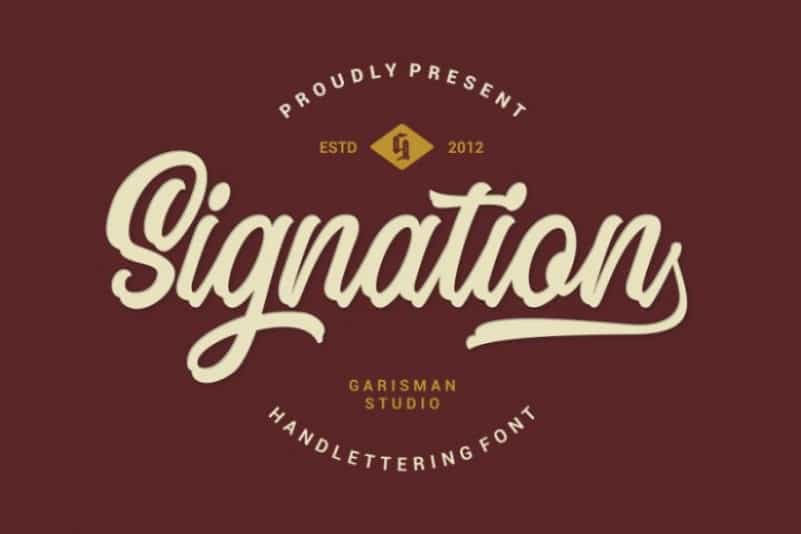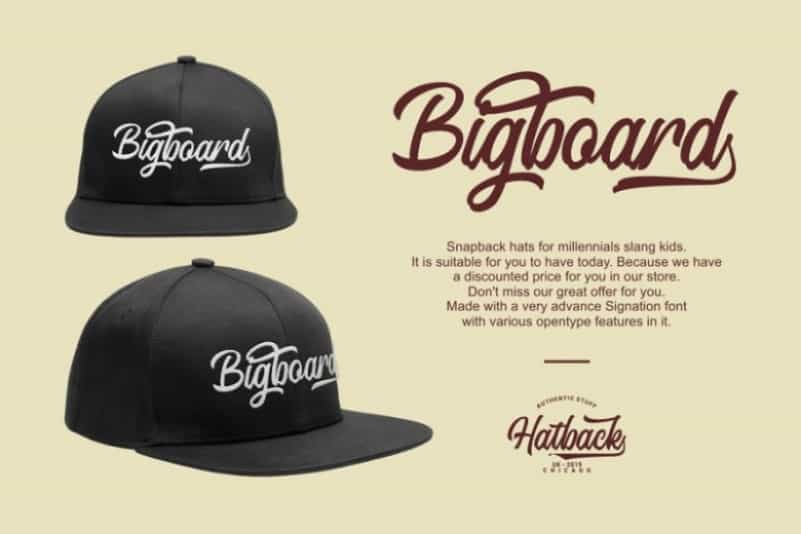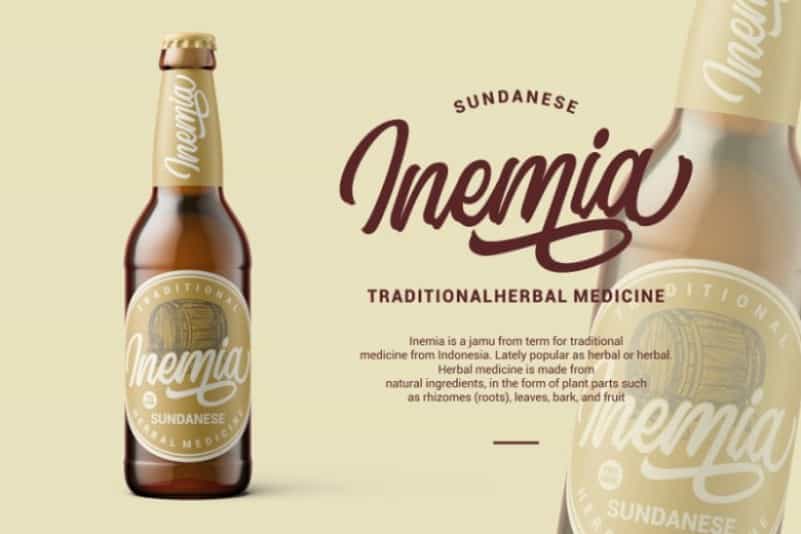
Introducing Signation Font. This is created and posted by Garisman Std. Signation Script has evolved from hand scratches to achieve an organic and organic look. When the main style of the hand-lettering script is used, it will be very nice if it is complemented with several Alternates (Capital letters) and some Stylistic Sets which are very appropriate.